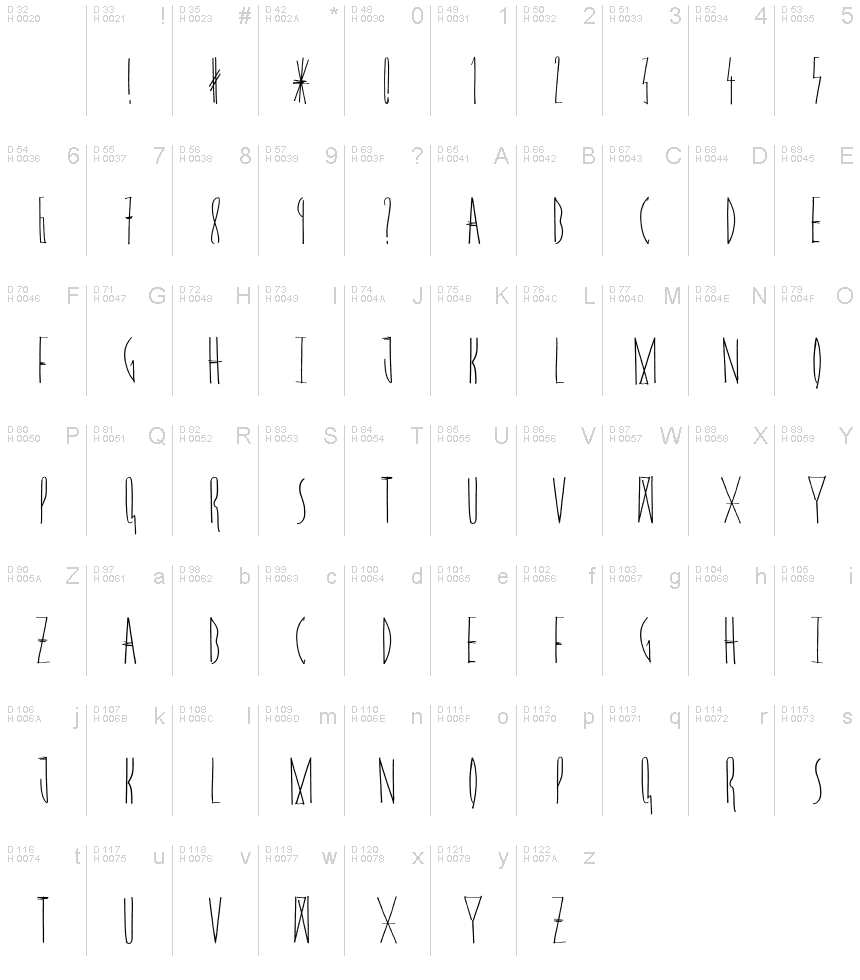
Masquerade
Masquerade is a captivating display font that exudes a sense of elegance and mystery. Designed by Max Infeld Xerographer Fonts, this light, condensed typeface boasts intricate, swirling letterforms that evoke a sense of sophistication and intrigue.
The delicate, elongated strokes and subtle variations in thickness lend the font a captivating, handcrafted aesthetic, making it a versatile choice for a wide range of design applications, from high-end fashion editorials to elegant wedding invitations.
Masquerade's unique personality and refined style make it a standout choice for designers seeking to imbue their projects with a touch of enchantment and refinement.